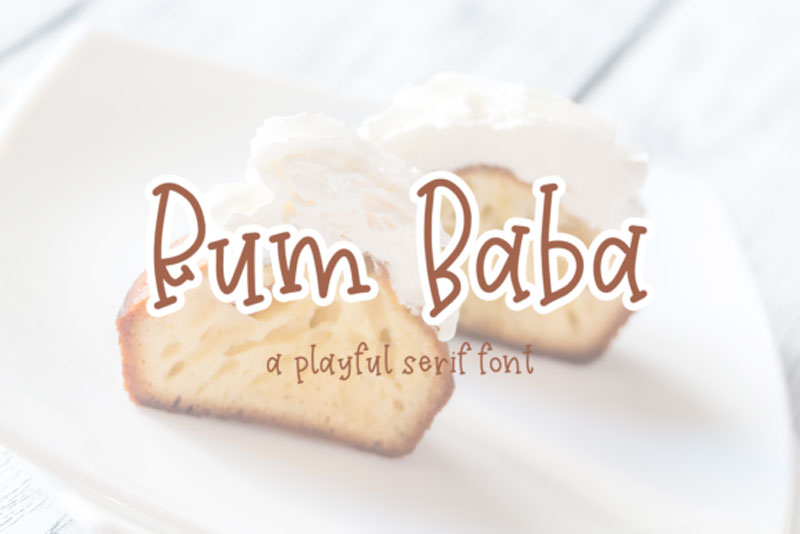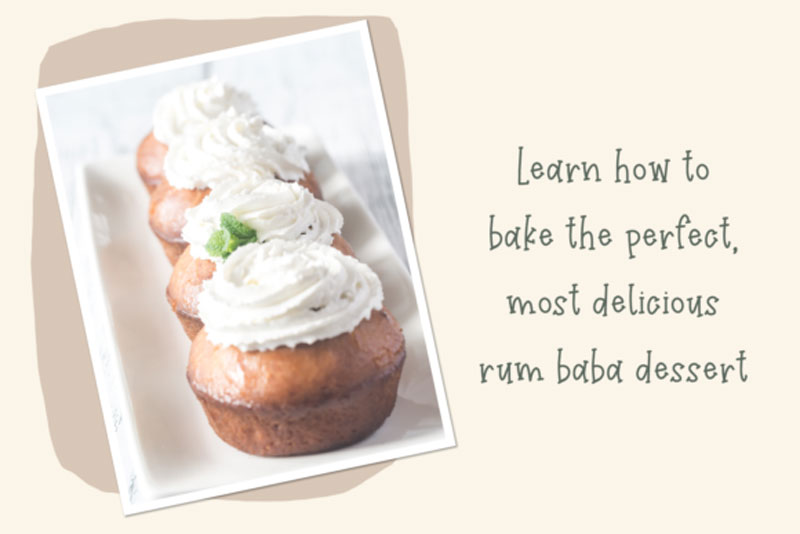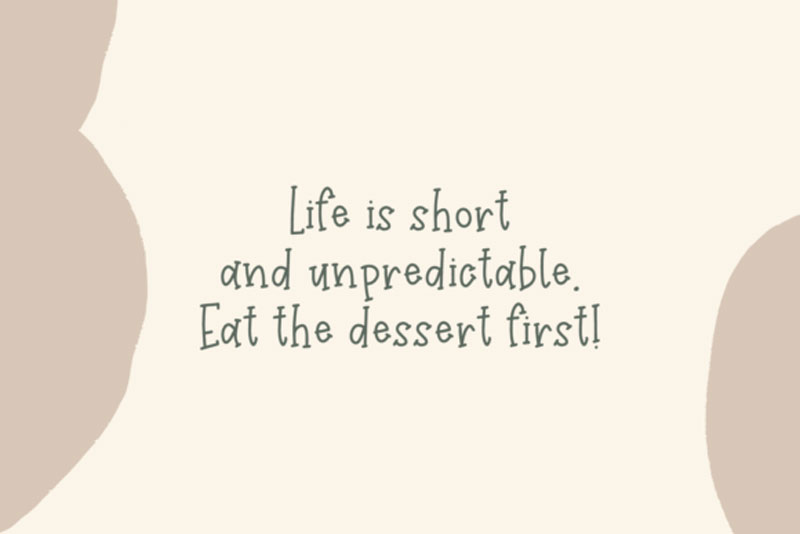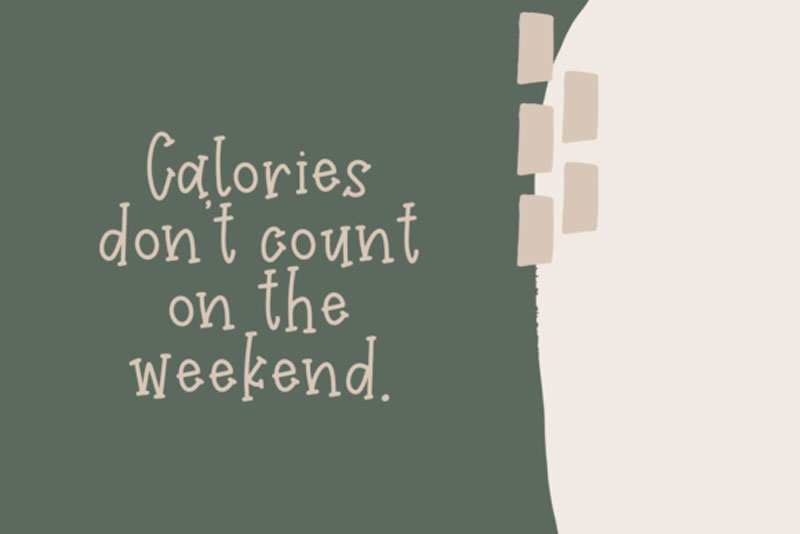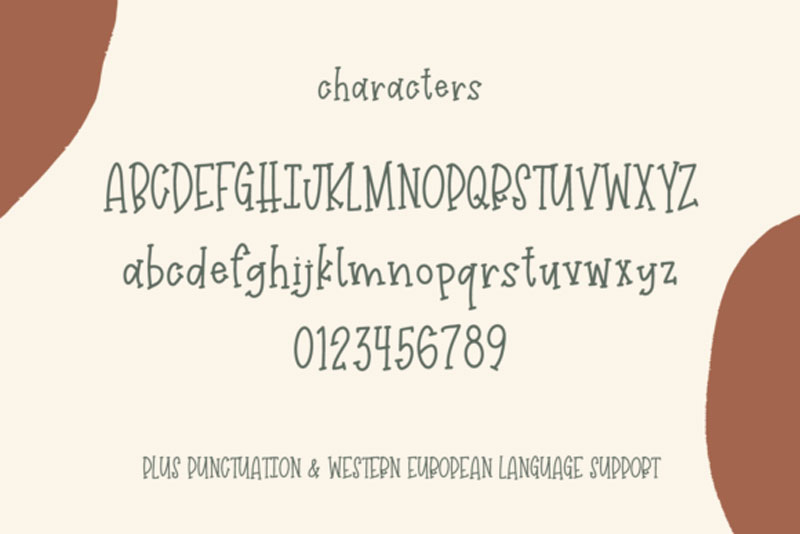
Rum Baba Font
Rum Baba feels equally charming and elegant. Whether you’re looking for fonts for Instagram or calligraphy scripts for DIY projects, this serif font will turn any creative idea into a true piece of art. Also checkout Raelly Rustic Font.